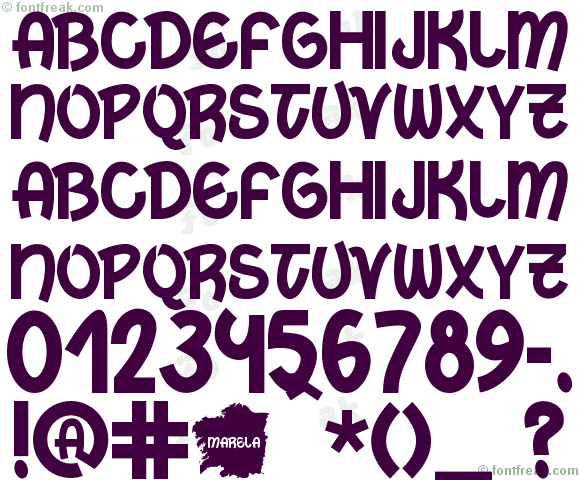
Marela
Marela, designed by Ruben Prol in 2005, is a captivating display font that perfectly balances elegance and modernity. This font showcases a unique blend of artistic flair and readability, making it an ideal choice for a variety of design projects. Marela features a clean, sans-serif style characterized by its smooth curves and slightly rounded edges, giving it a friendly and approachable appearance. The stroke weight is consistent throughout, providing a harmonious visual flow that enhances legibility. Additionally, the spacing between characters is thoughtfully crafted, ensuring that each letter stands out without sacrificing cohesion.
This versatile font shines in several specific use cases. It is particularly well-suited for wedding invitations, where its elegant yet whimsical design can add a touch of sophistication. Additionally, Marela works beautifully on movie posters, effectively capturing attention with its bold presence. Restaurant menus can benefit from Marela’s readability, making it easy for patrons to browse offerings. Furthermore, this font can enhance branding for small businesses, offering a memorable and distinctive look for logos and promotional materials. Content creators will also find Marela ideal for social media graphics, where eye-catching typography can elevate engagement.
Targeting graphic designers, small business owners, and content creators alike, Marela is a font that invites creativity and innovation. Its unique design elements make it stand out in a crowded market, providing users with a tool that not only meets functional needs but also inspires artistic expression. For those looking to elevate their projects, the Marela font free download offers a delightful opportunity to incorporate this striking typeface into their work. The combination of its modern aesthetic and practical versatility ensures that Marela remains a favorite among design enthusiasts.